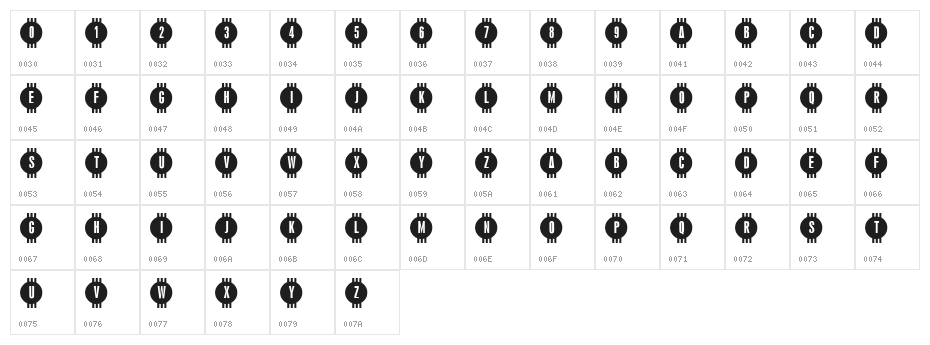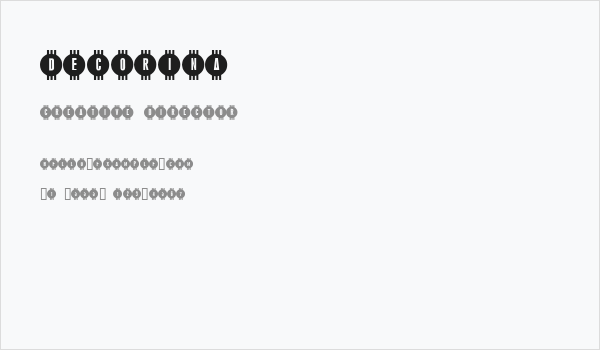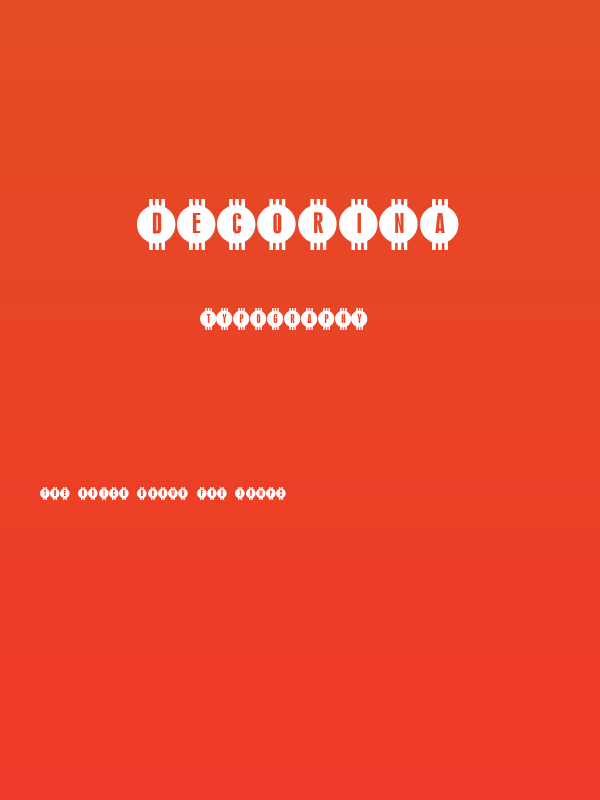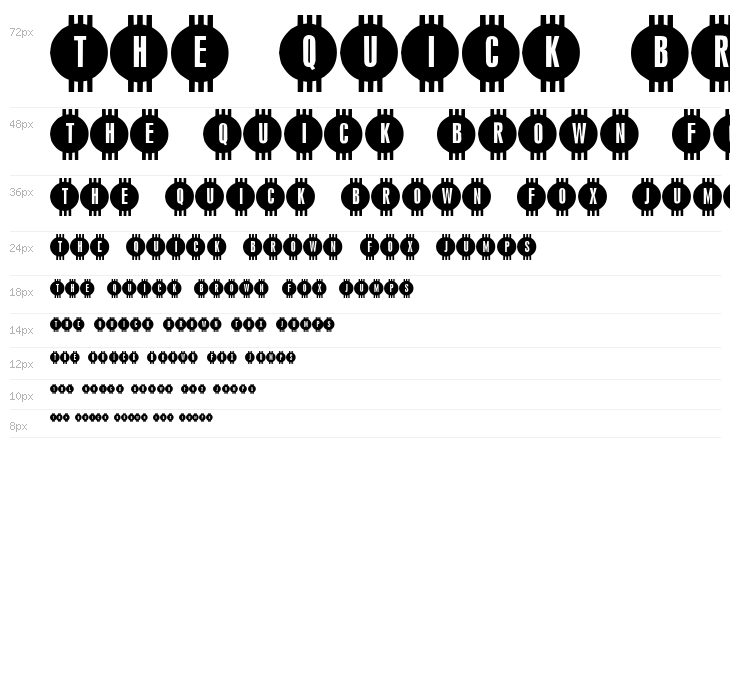
Decorina Font
Decorina Description
This font features a bold, circular design with each character enclosed within a solid black circle. The letters and numbers are white and centered, creating a striking contrast against the dark background. The font is highly decorative, with a unique style that incorporates vertical lines on either side of each circle, adding a sense of symmetry and balance. The characters are evenly spaced, maintaining a consistent and cohesive appearance throughout. This font is particularly eye-catching and would be suitable for projects that require a bold and distinctive visual impact.
| Proposed Projects | Ideal for logos, posters, and branding materials that require a strong visual presence. |